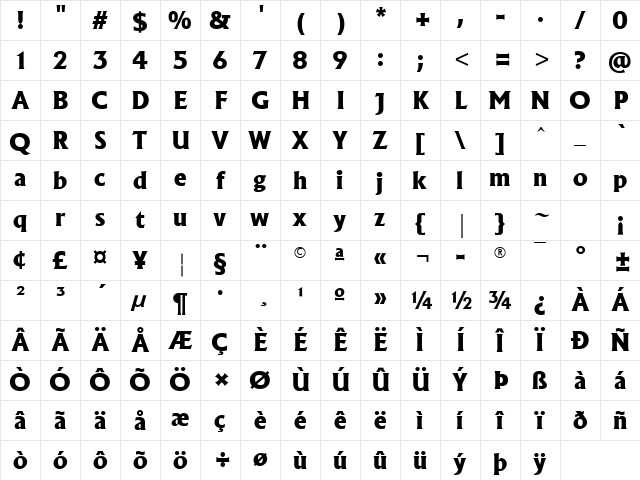
Complete Alaska Extra Bold glyph index. Displaying only characters natively supported by Alaska Extra Bold font.
Alaska Extra is a composed and adaptable typeface that performs quietly and consistently across a wide range of design contexts. Its bold stroke weight gives it real presence on the page.